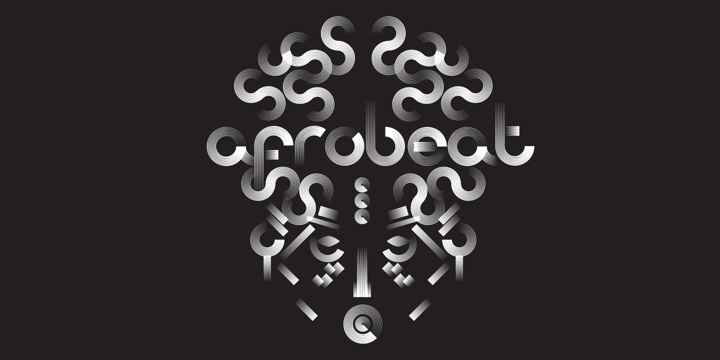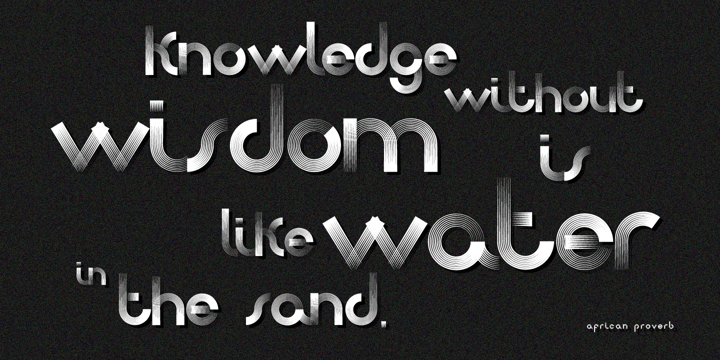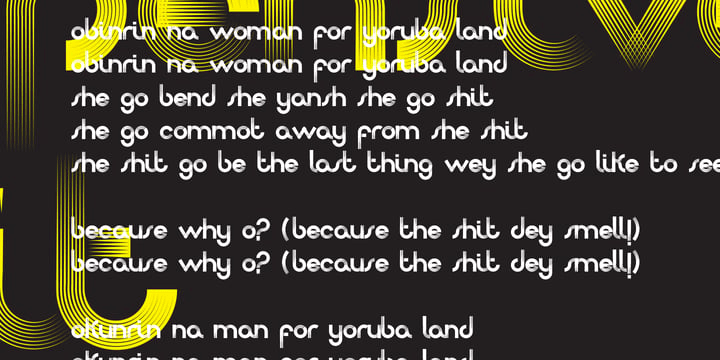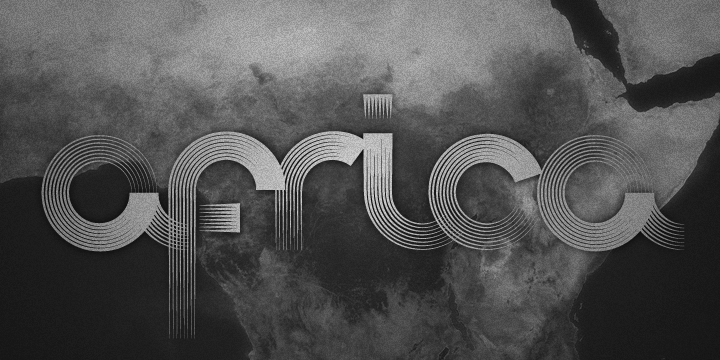
The pounding tribal rhythms of Afrobeat music is expressed through this psychedelic brand new font, Afrobeat. Words become art as letters are elegantly placed side by side like musical notes, creating music for the eyes. Perfect for big, eye-catching…